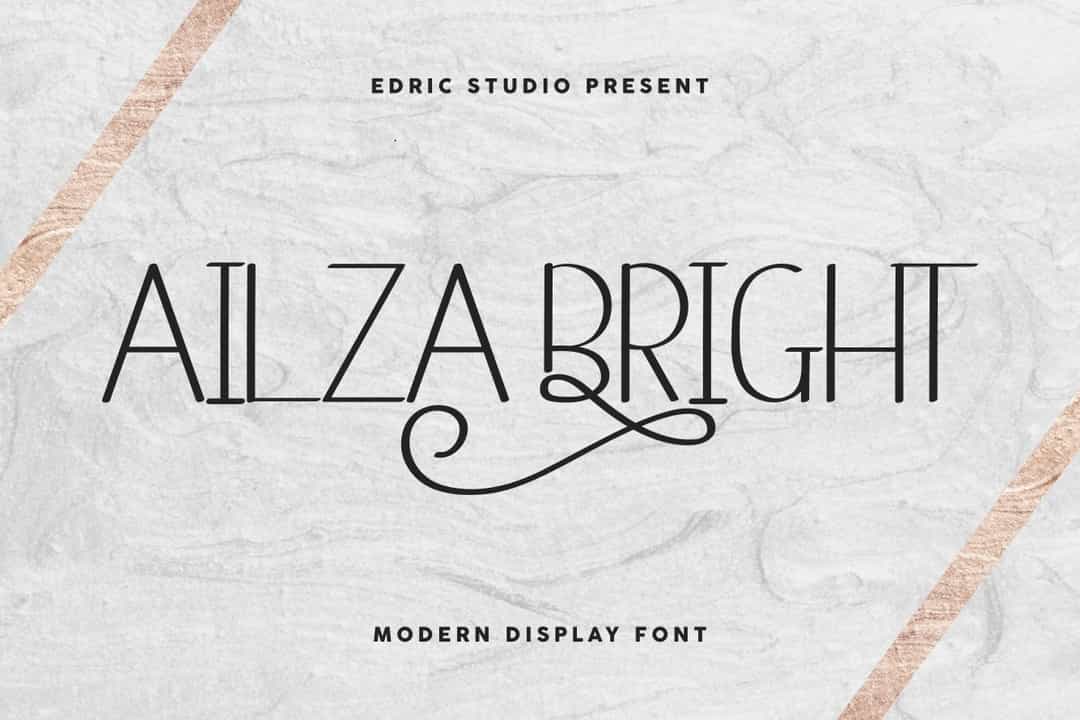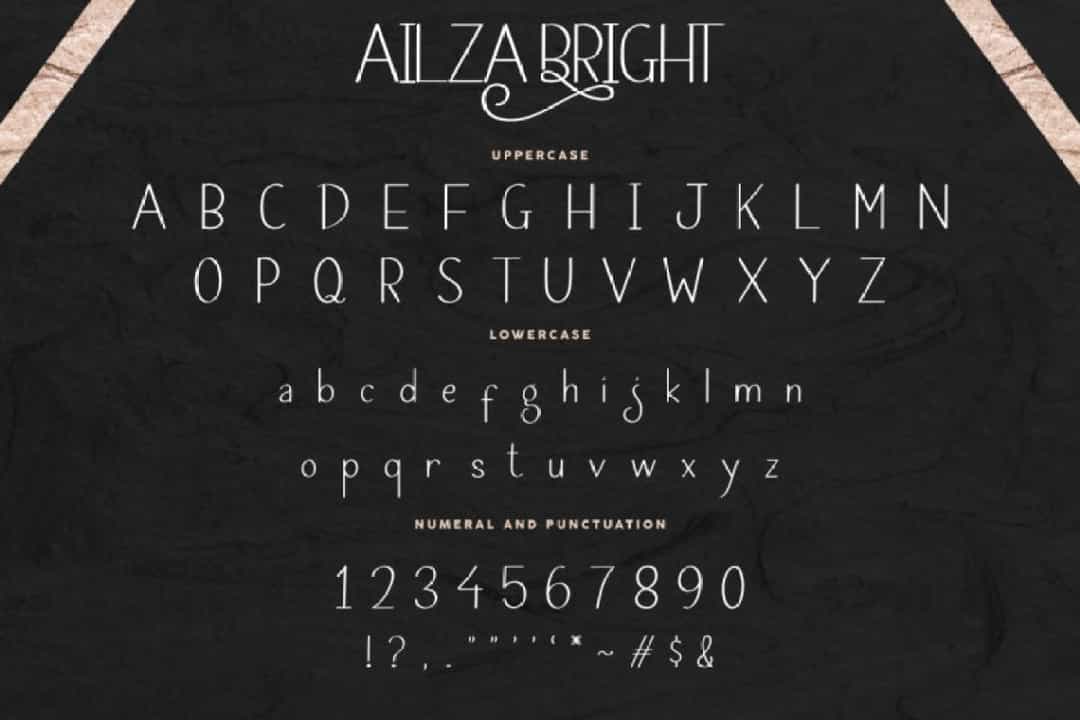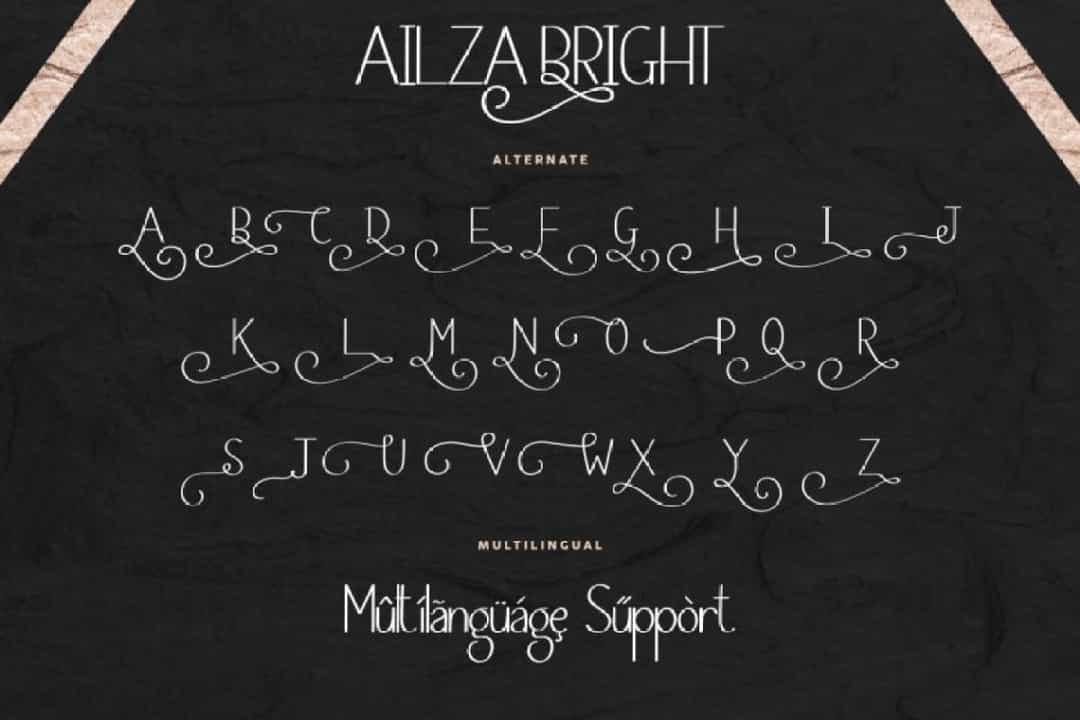
Ailza Bright is a display sans font of victorian era style created by hand in our studio in Indonesia by Widi and Sarah; the designers and the typeface designers. The Ailza The Bright Vintage is a bright and vintage display sans-serif font.